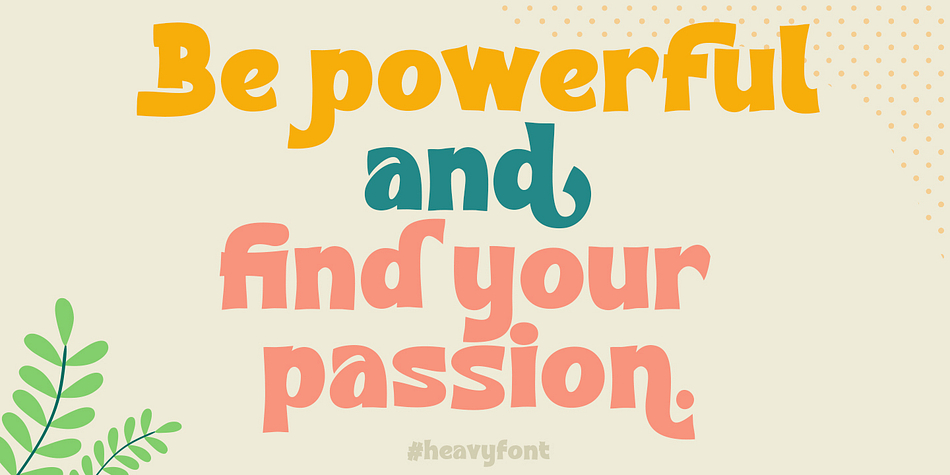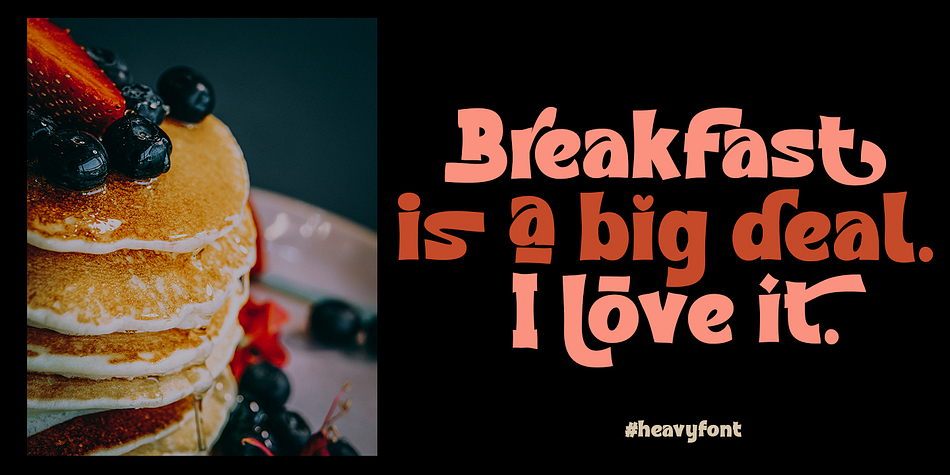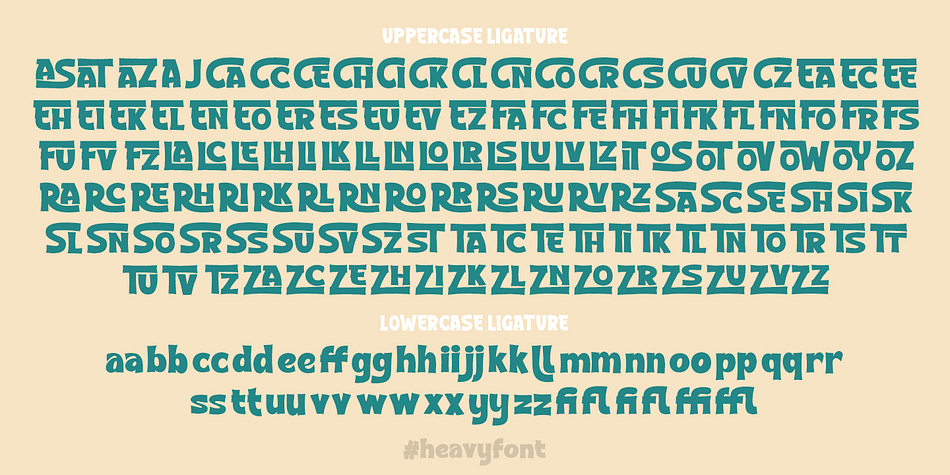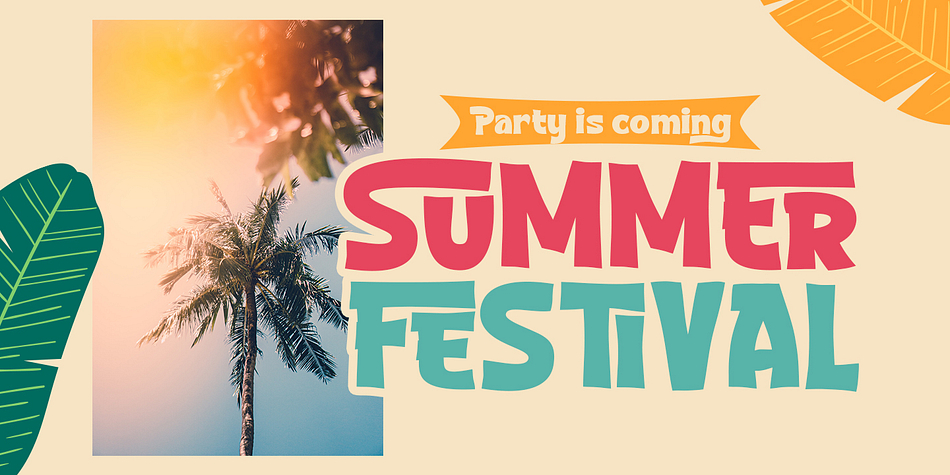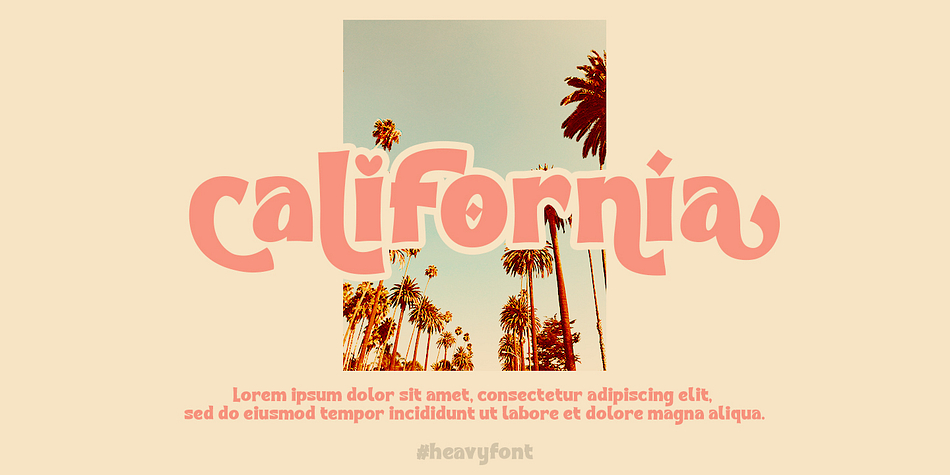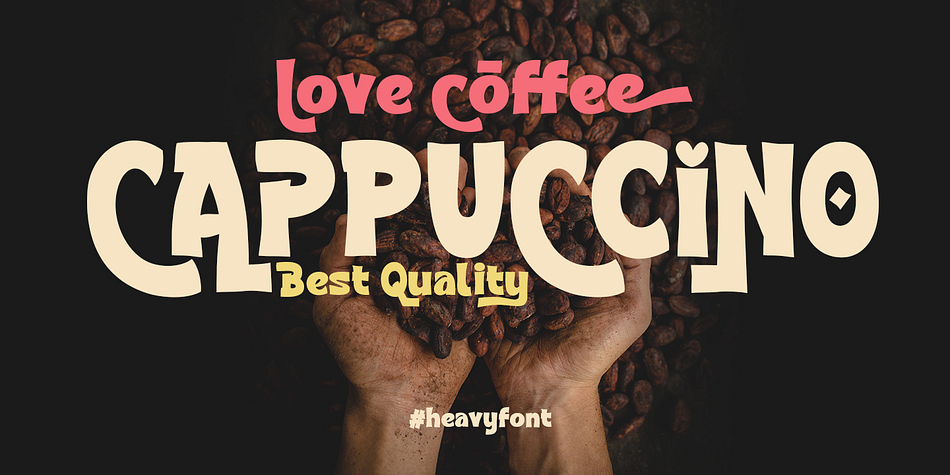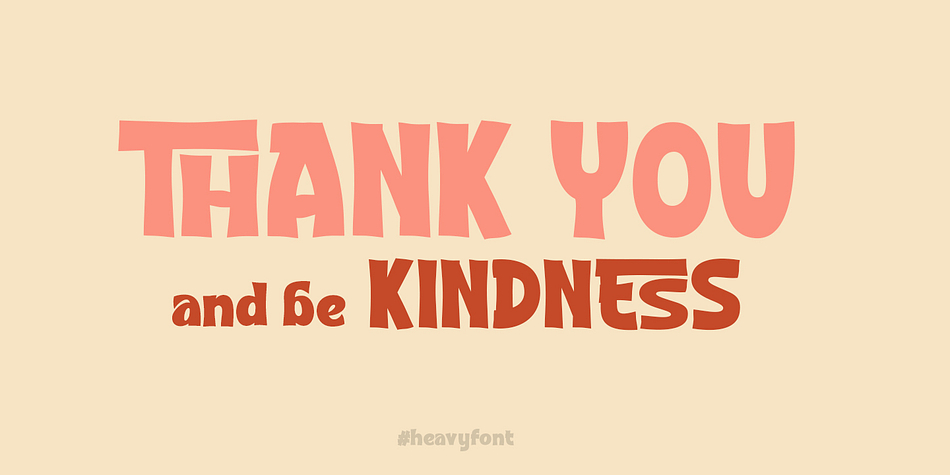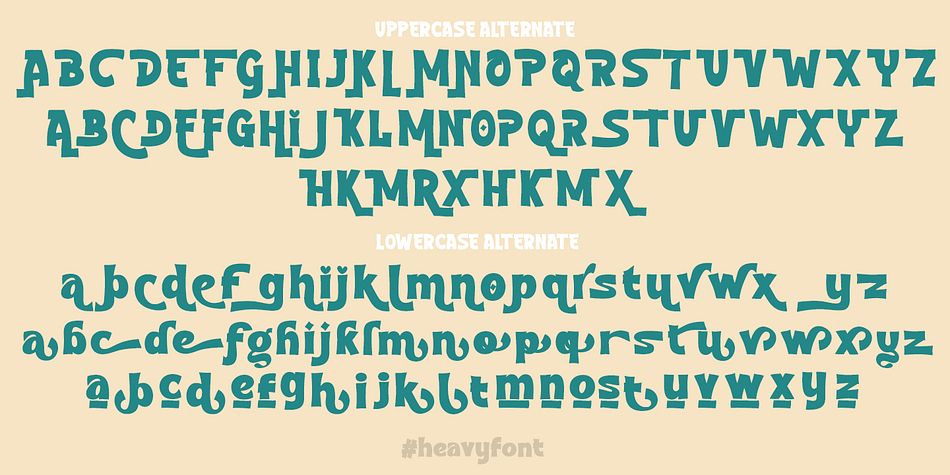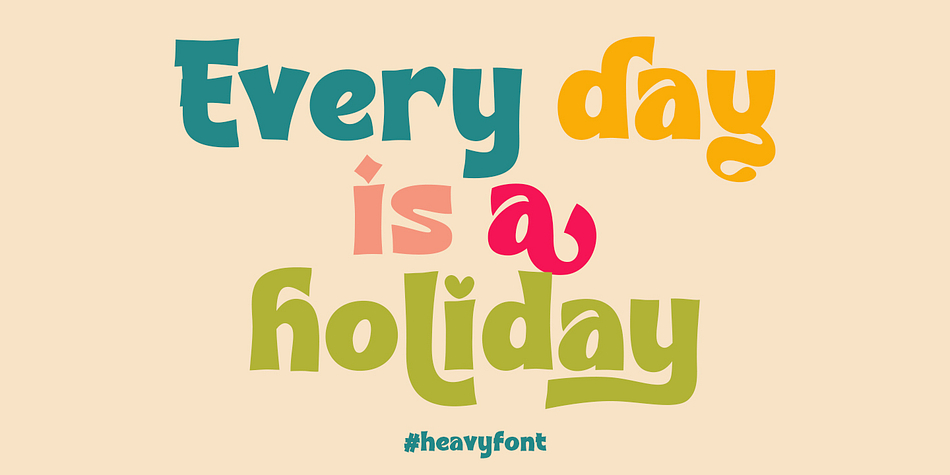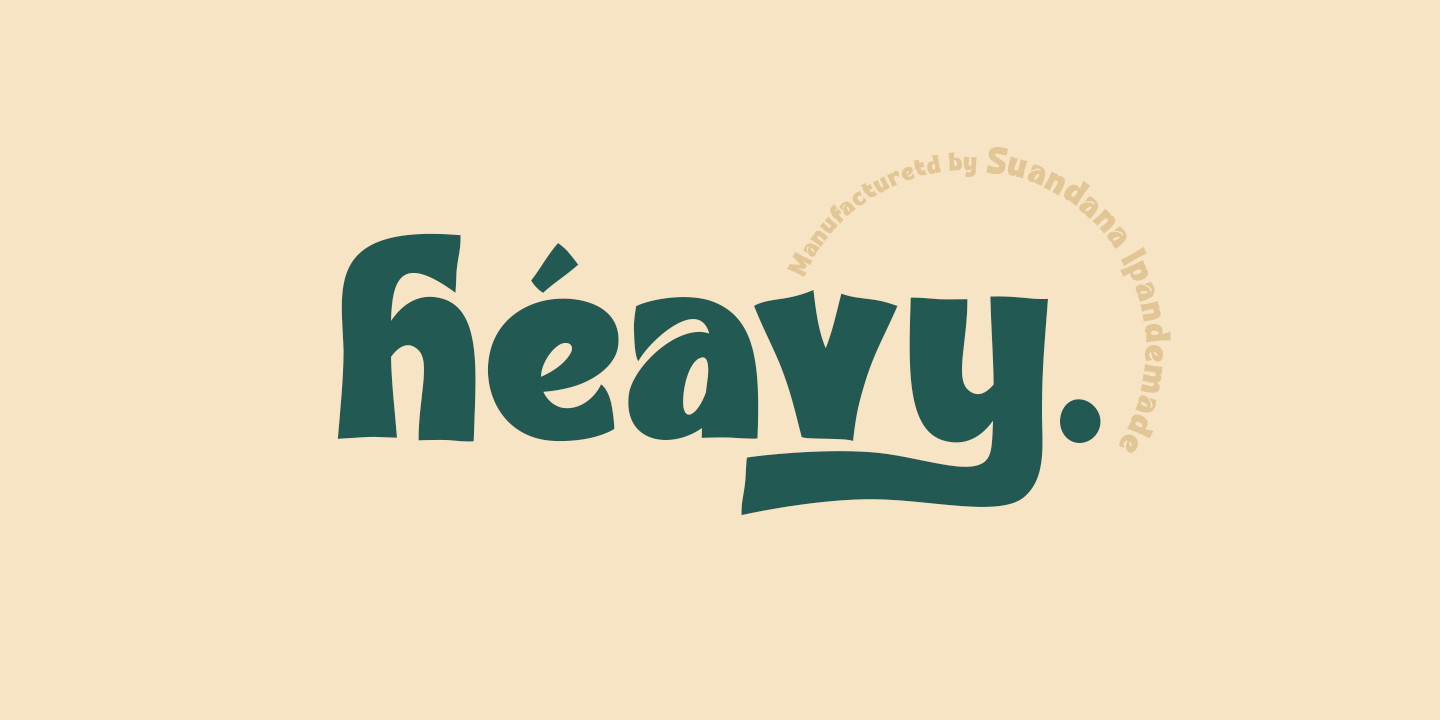
Heavy
Designed by Suandana Ipandemade, Heavy is a display sans and hand display font published by madeDeduk.
Introducing Heavy is a fun bold font and will be perfect for book, title branding, product packaging, invitation, quotes, t-shirt, label, poster, logo etc.
- Alternates
-  Ligatures
Styles Display Sans, Hand Display